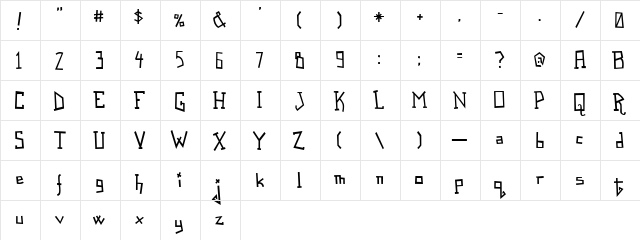
Spastic Nerfbag Regular
Design Context for Spastic Nerfbag Typeface
Spastic Nerfbag is a composed and adaptable typeface that performs quietly and consistently across a wide range of design contexts.